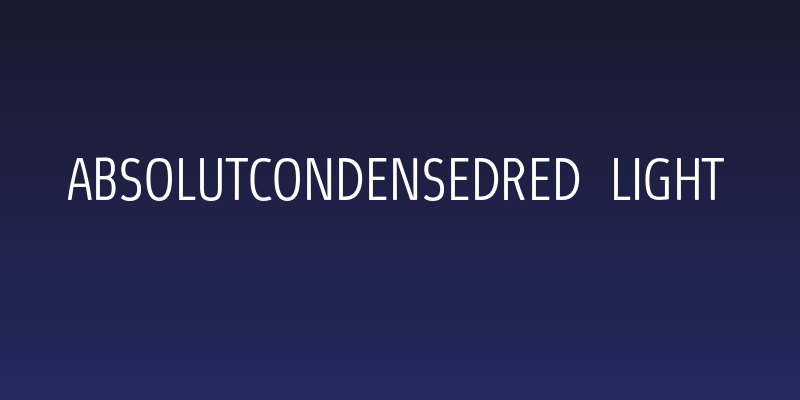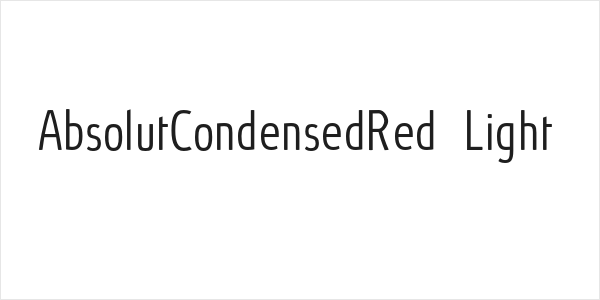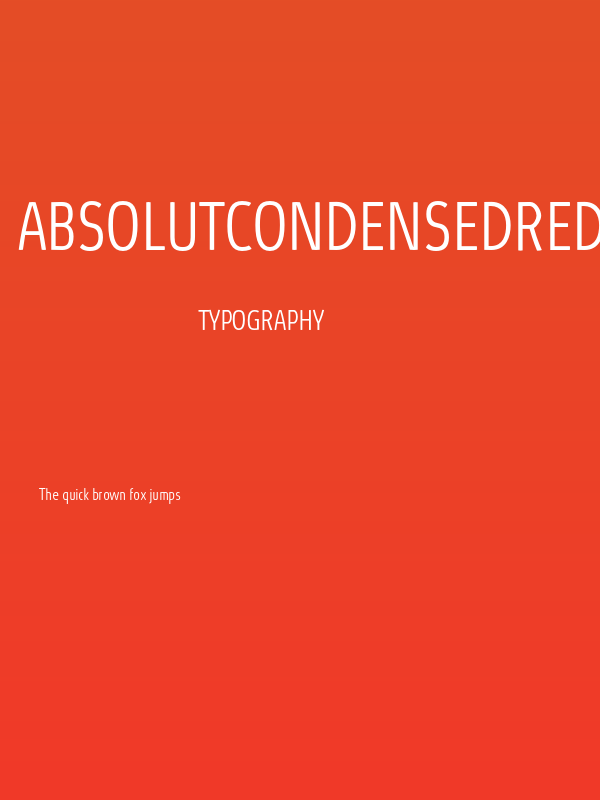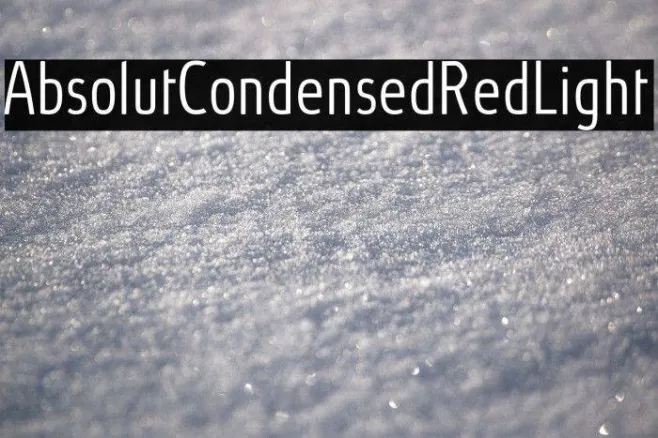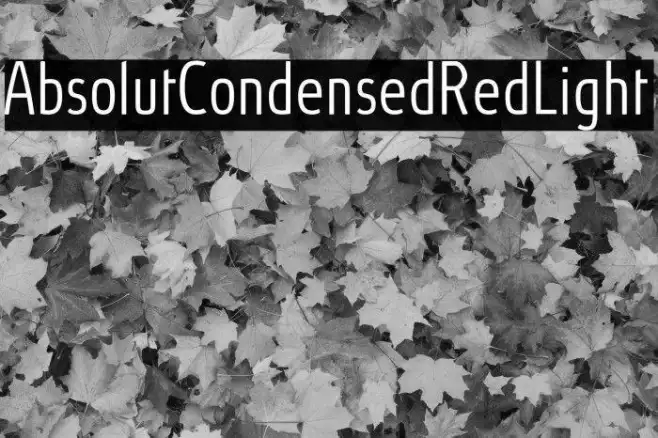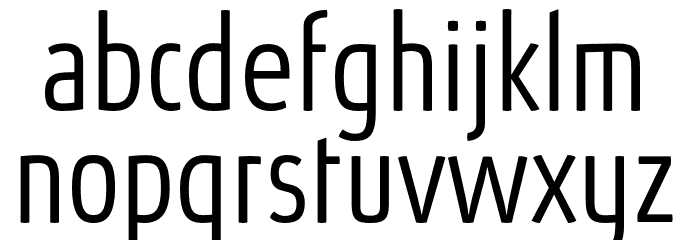
AbsolutCondensedRed-Light Font
AbsolutCondensedRed-Light Description
This font features a clean and modern sans-serif design with a condensed structure, making it ideal for space-saving applications. The characters are uniformly narrow, with a consistent stroke width that maintains legibility even at smaller sizes. The uppercase letters are tall and commanding, while the lowercase letters are slightly rounded, adding a touch of softness to the overall appearance. The font's geometric precision and minimalistic style make it versatile for various design needs. It is well-suited for both digital and print media, offering a sleek and professional look.
| Proposed Projects | Ideal for branding, editorial design, web design, and advertising where space is limited. |